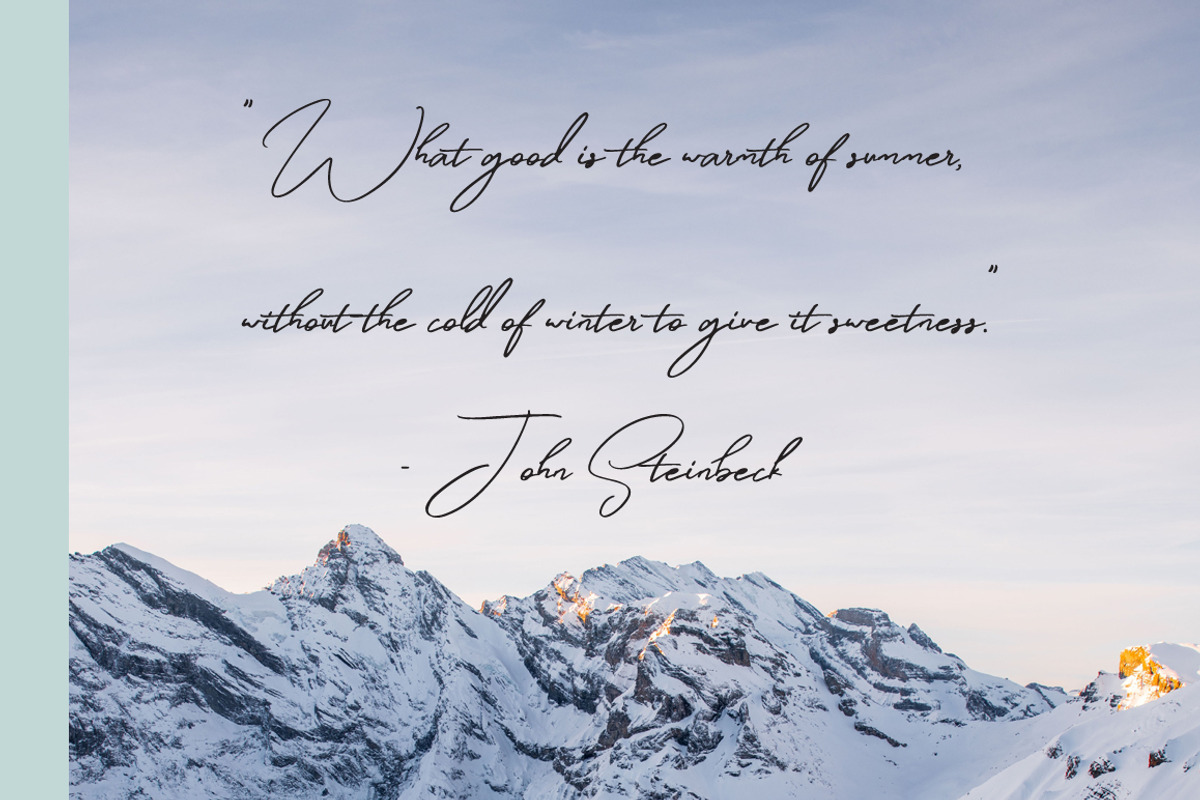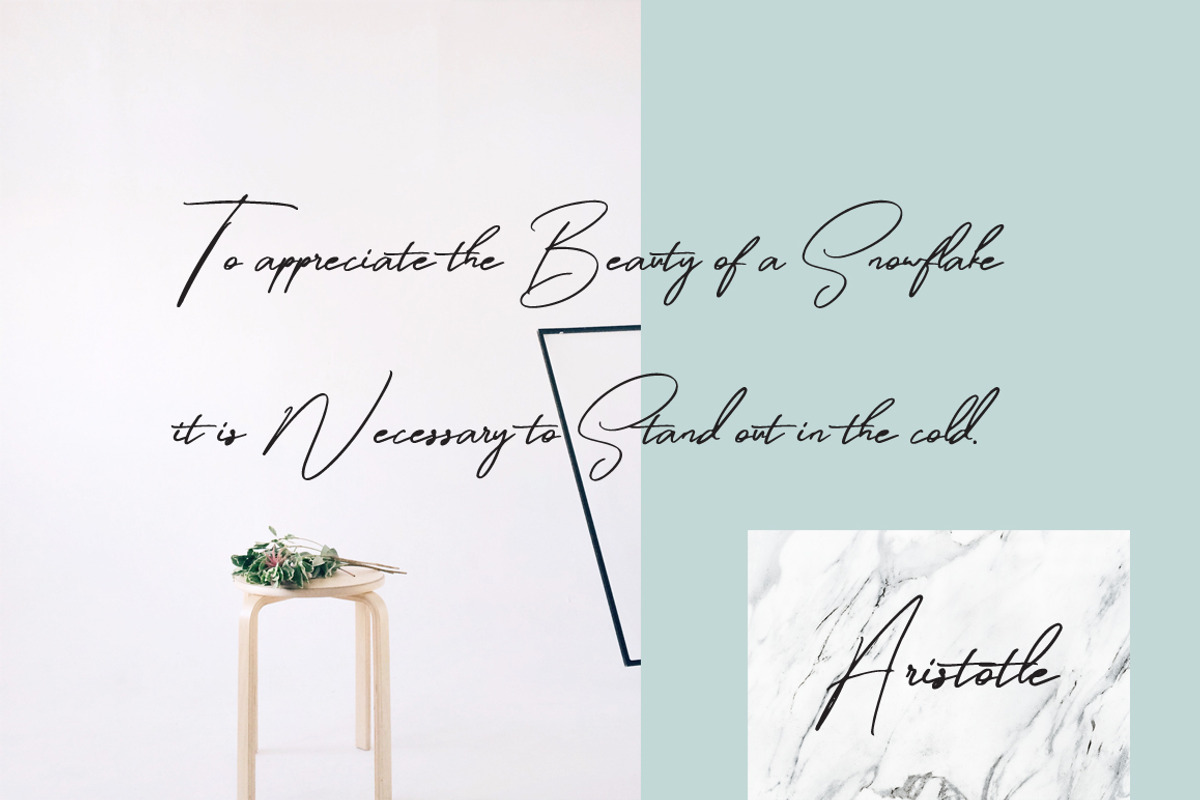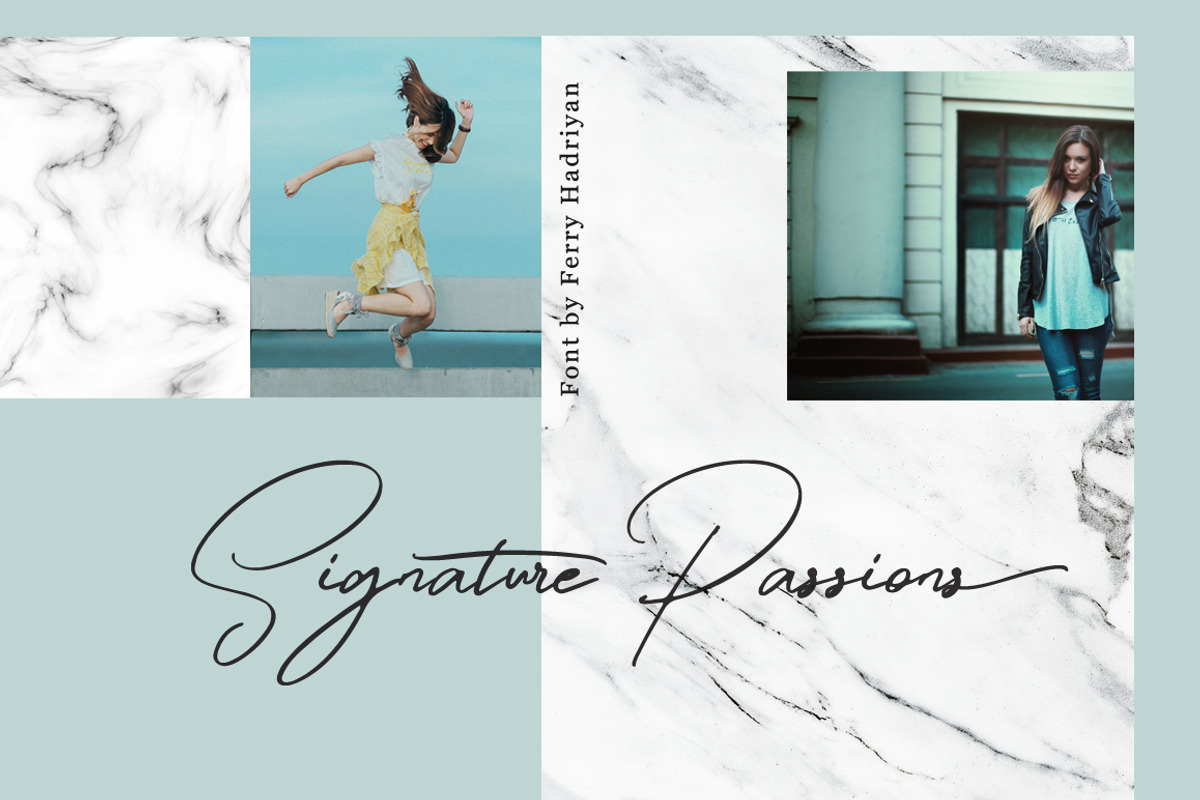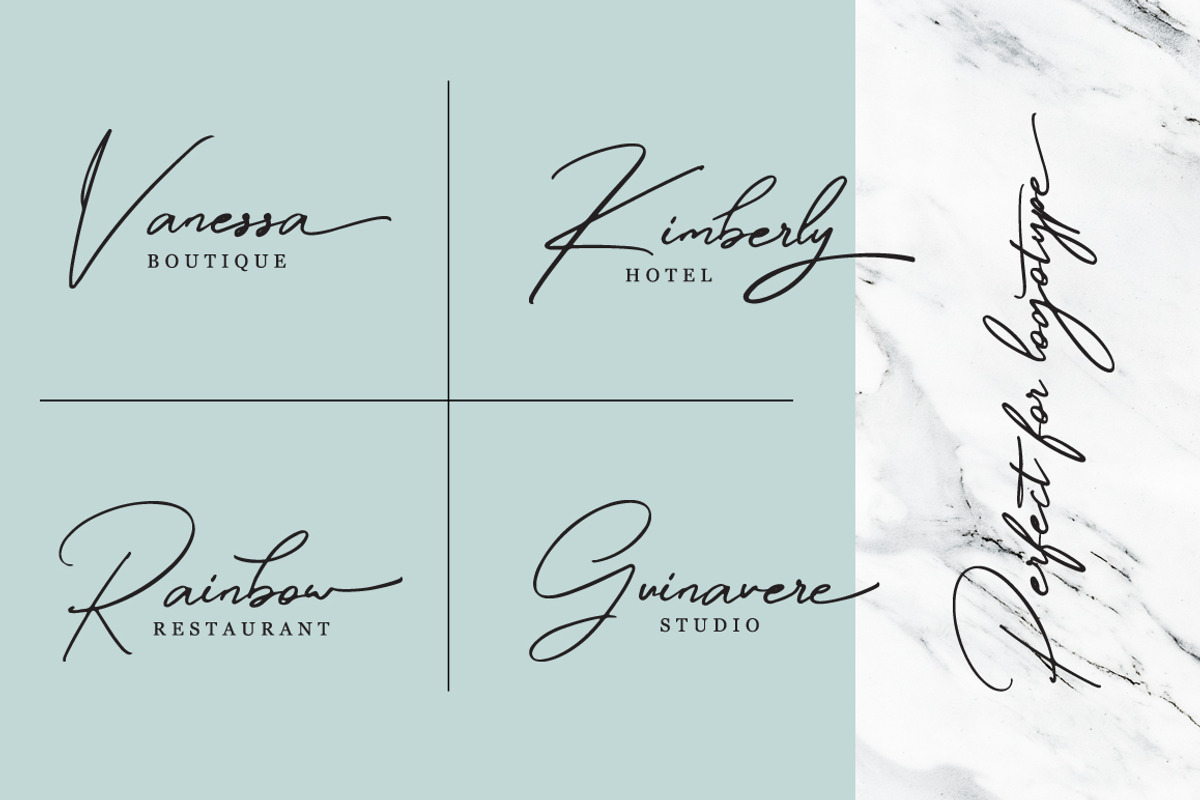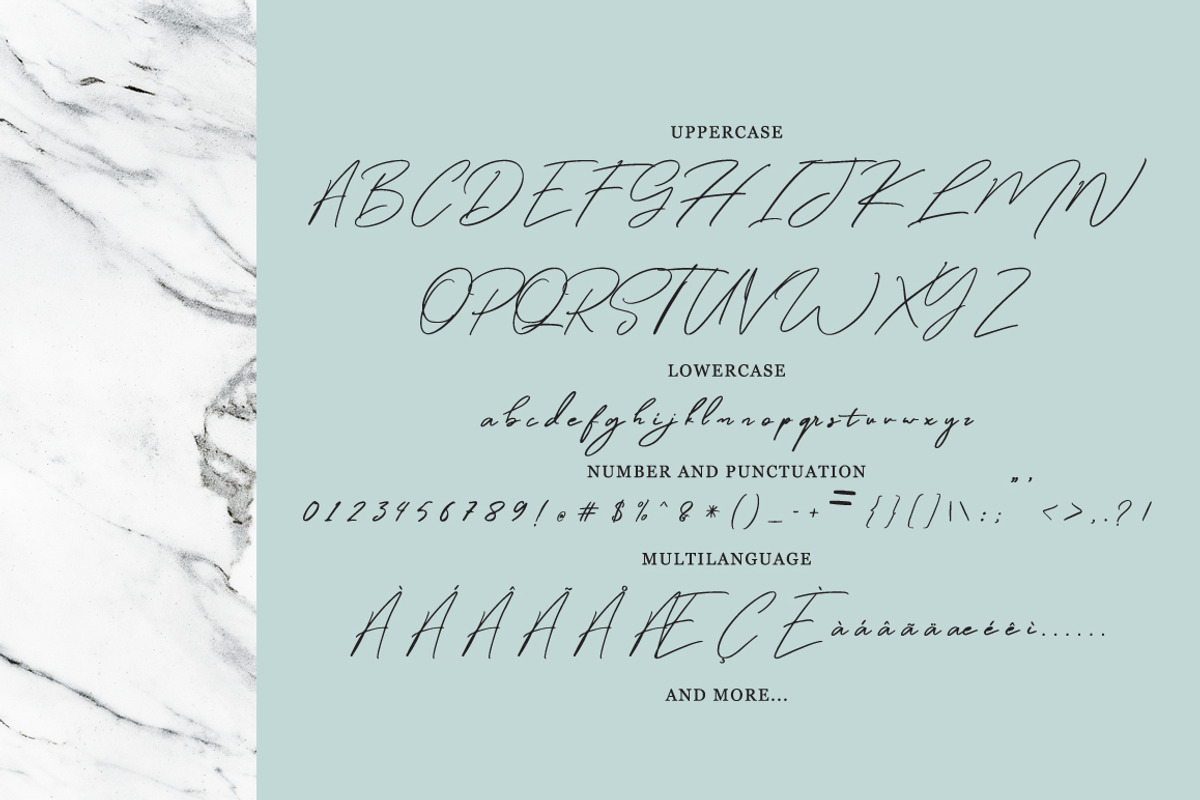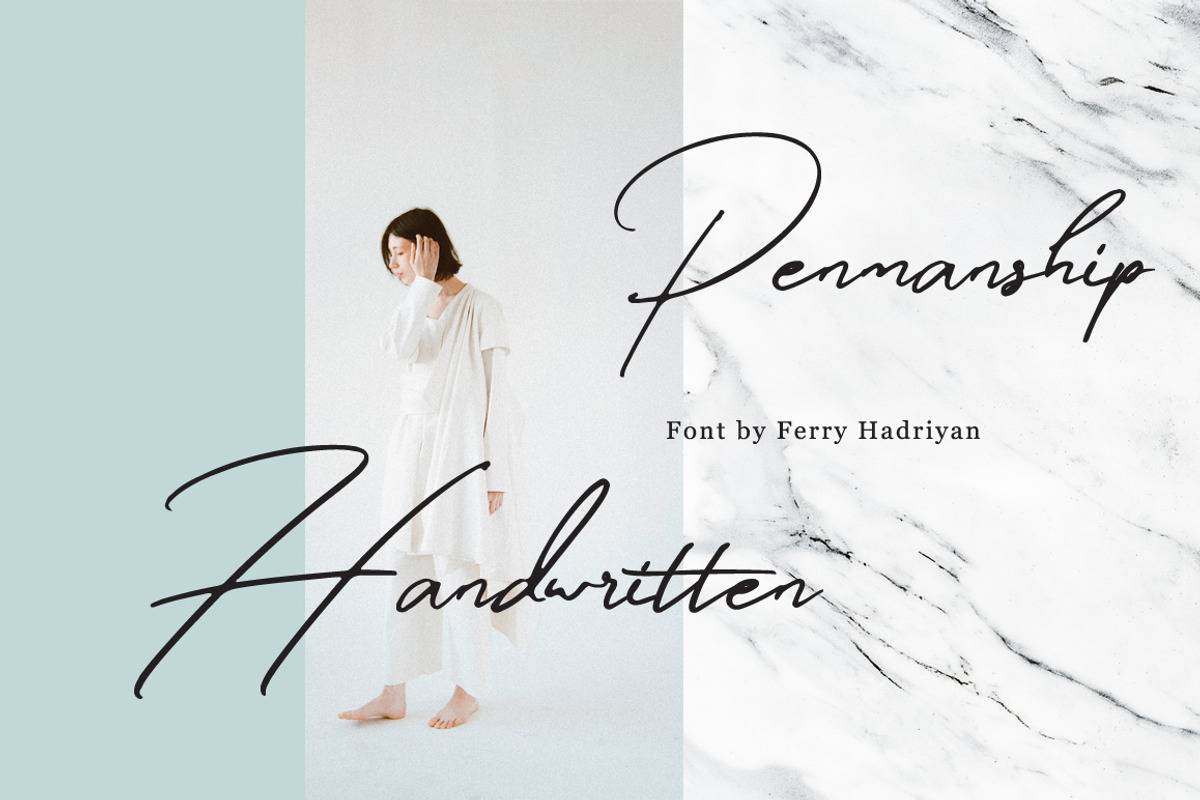
Winterfellia - Handwritten Font
Winterfellia is Signature Script Font with Handlettering Brush Style, with opentype feature include of the font. Suitable for design, element design, wedding, event, t-shirt, logo, badges, sticker, and awesome work, etc...
Why Winterfellia - Handwritten Font is worth a look
Winterfellia - Handwritten Font by FHFont fits naturally into Branding, posters, packaging, typography.